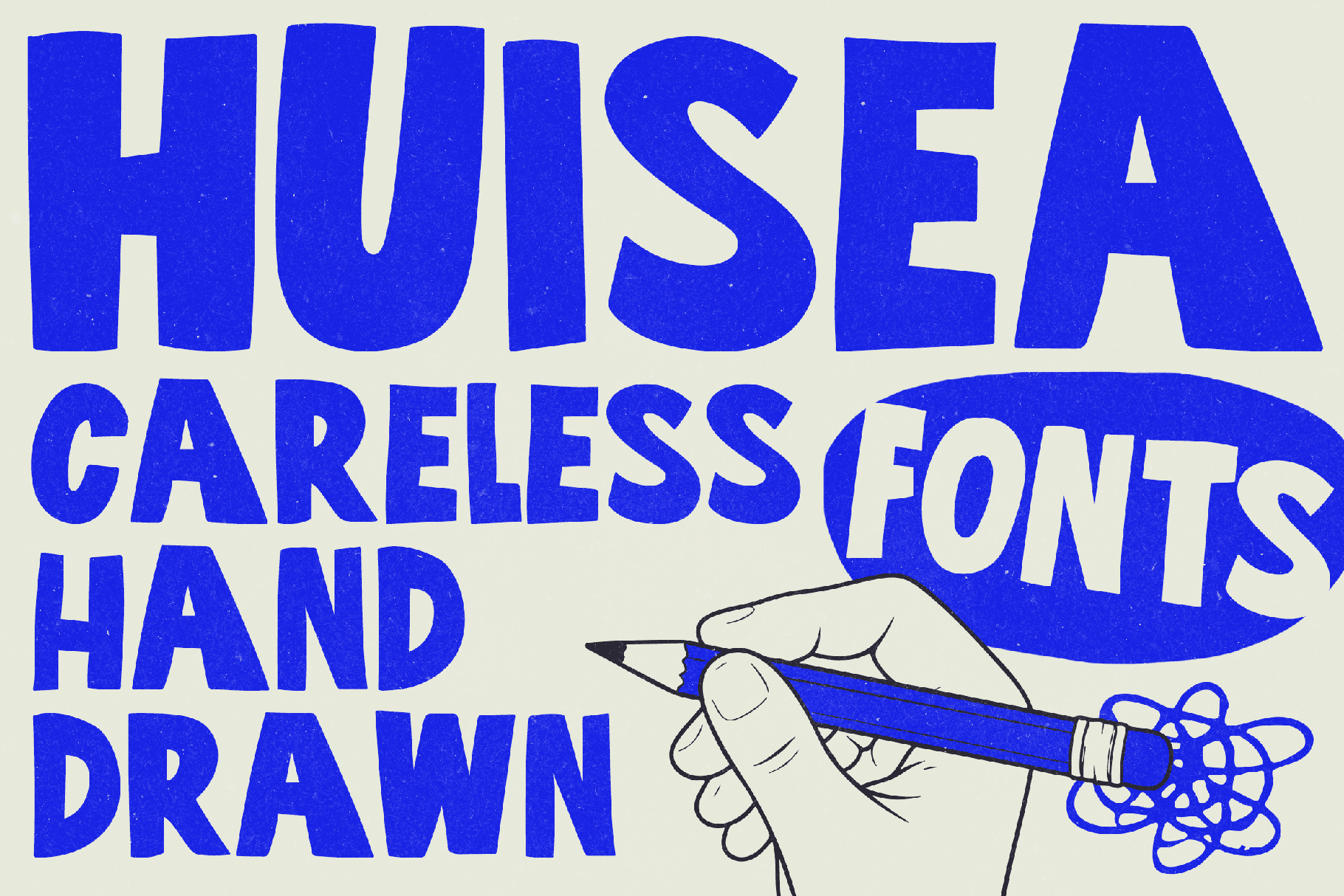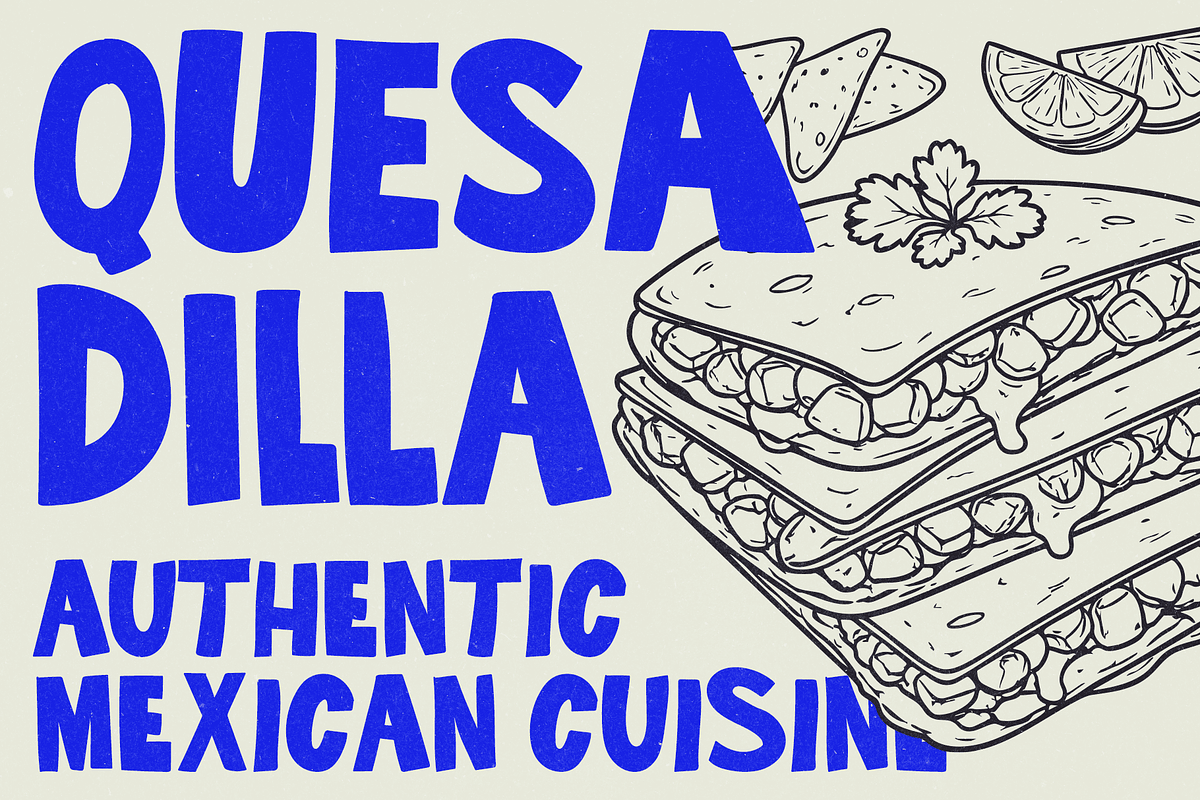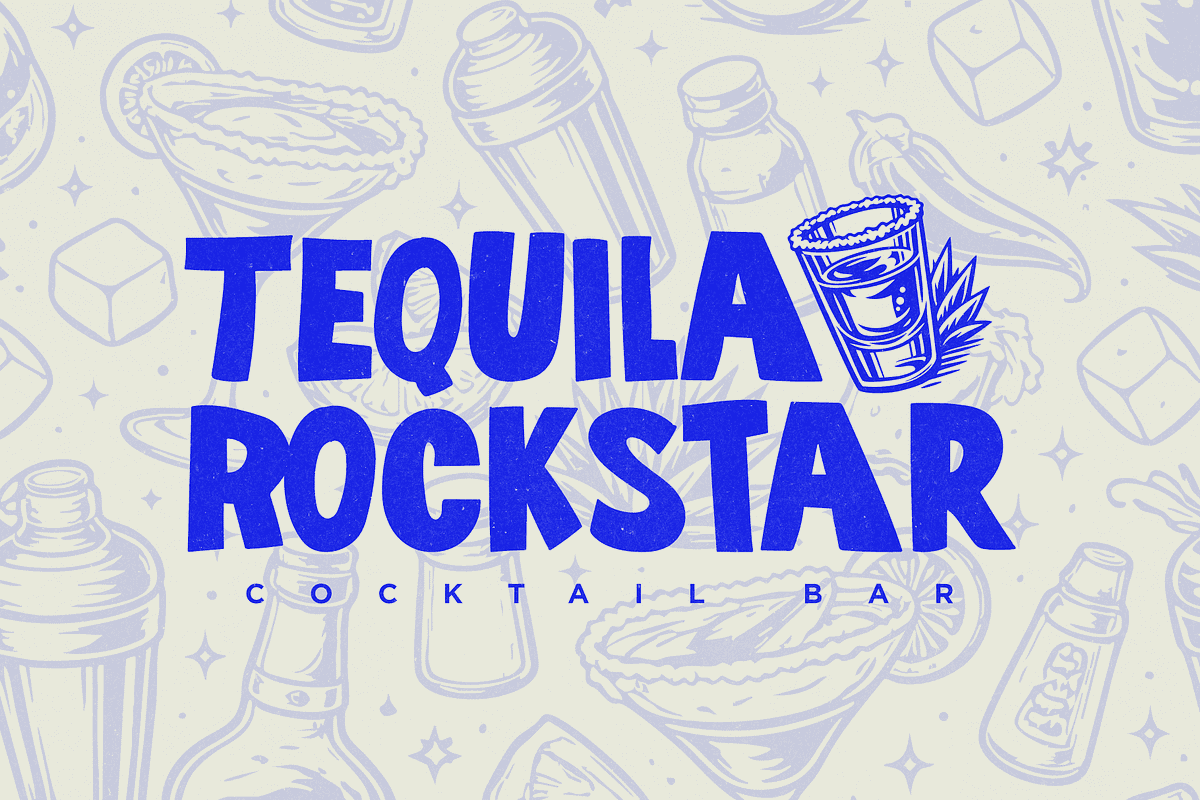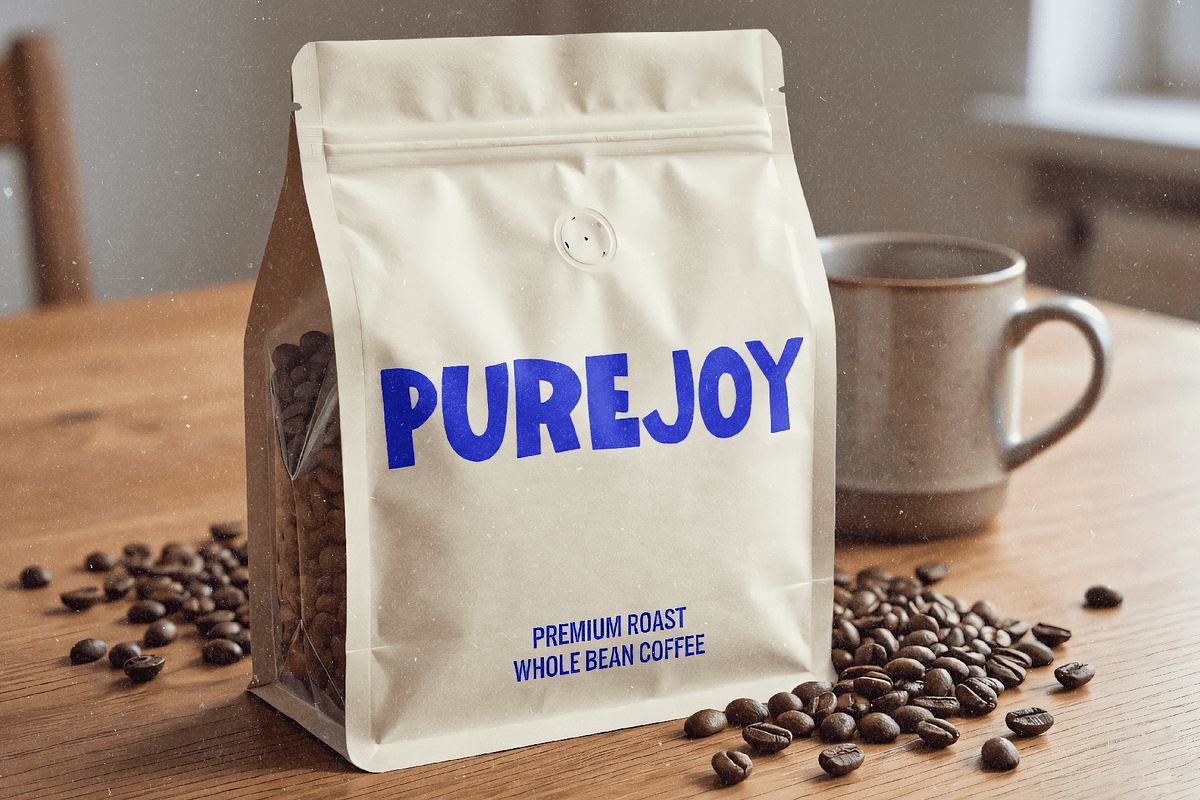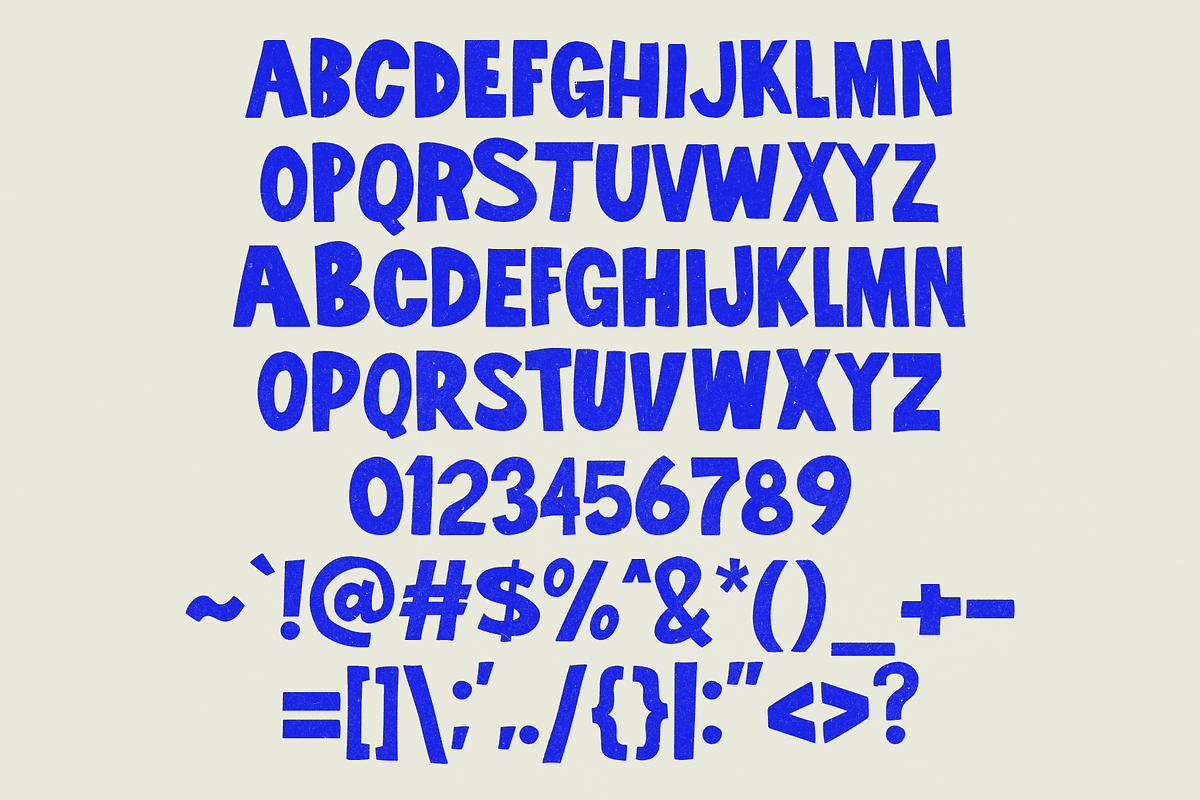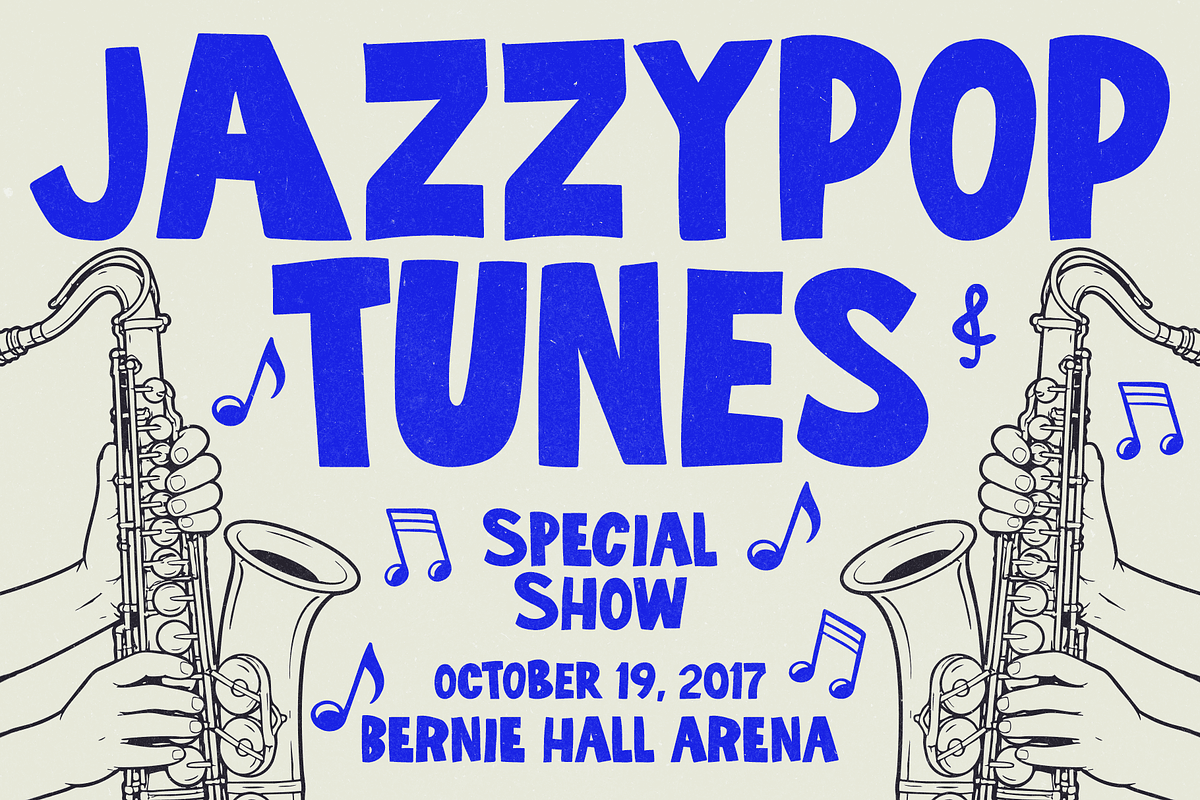
Huisea - Hand Drawn Fonts
Huisea: Perfection is Boring.
Stop trying to color inside the lines. Huisea is a love letter to the messy, the loud, and the unapologetically brave. It’s a hand-drawn display font designed for those who believe that "careless" is just another word for "authentic."
With its chunky, irregular strokes and high-octane energy, Huisea breaks the grid and demands to be seen. It doesn’t just sit on a page; it shouts. Whether you’re branding the next cult-favorite snack, dropping a music video, or capturing the raw spirit of youth culture, Huisea is your visual rebellion.
Why play it safe when you can play it loud?
The Vibe: Raw, playful, and fiercely independent.
The Use Case: F&B branding, streetwear labels, event posters, and pop-culture visuals.
The Edge: Hand-drawn soul that makes digital designs feel human.